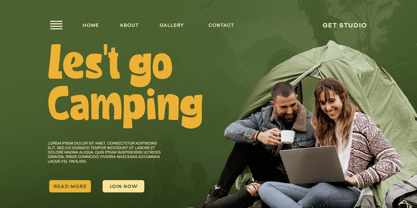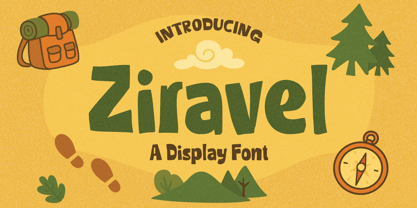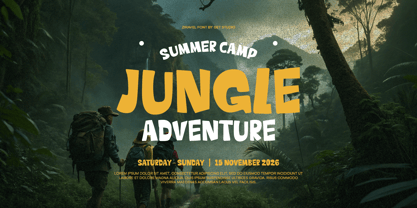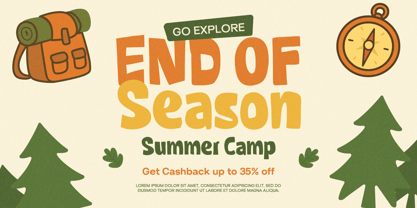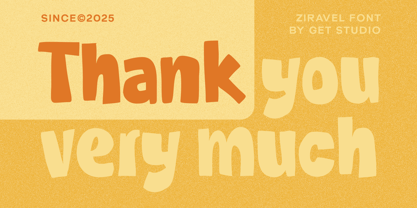
Ziravel
by Get Studio
The Ziravel Font Family was designed by Hermansyah and published by Get Studio. Ziravel contains 1 styles. More about this family
Say hello to Ziravel, a bold and friendly display font inspired by the spirit of adventure and the great outdoors! Whether you're designing for children’s books, camping posters, travel branding, or playful packaging, Ziravel adds a warm and whimsical touch to every project.
With quirky, hand-crafted letterforms and a fun personality, this font is perfect for projects that want to stand out with charm and creativity. Its slightly irregular shapes give it a handmade feel that brings authenticity and character to your designs.
Perfectly suited for display use: headlines, logos, posters, stickers, book covers, and more
🎒 Great for:
• Adventure & travel branding
• Kids' products and storybooks
• Retro or vintage-inspired layouts
• Nature-themed social media graphics
• Fun merchandise and packaging
Let Ziravel guide your creativity like a compass in the wild — cheerful, bold, and full of personality. 🌲🌄